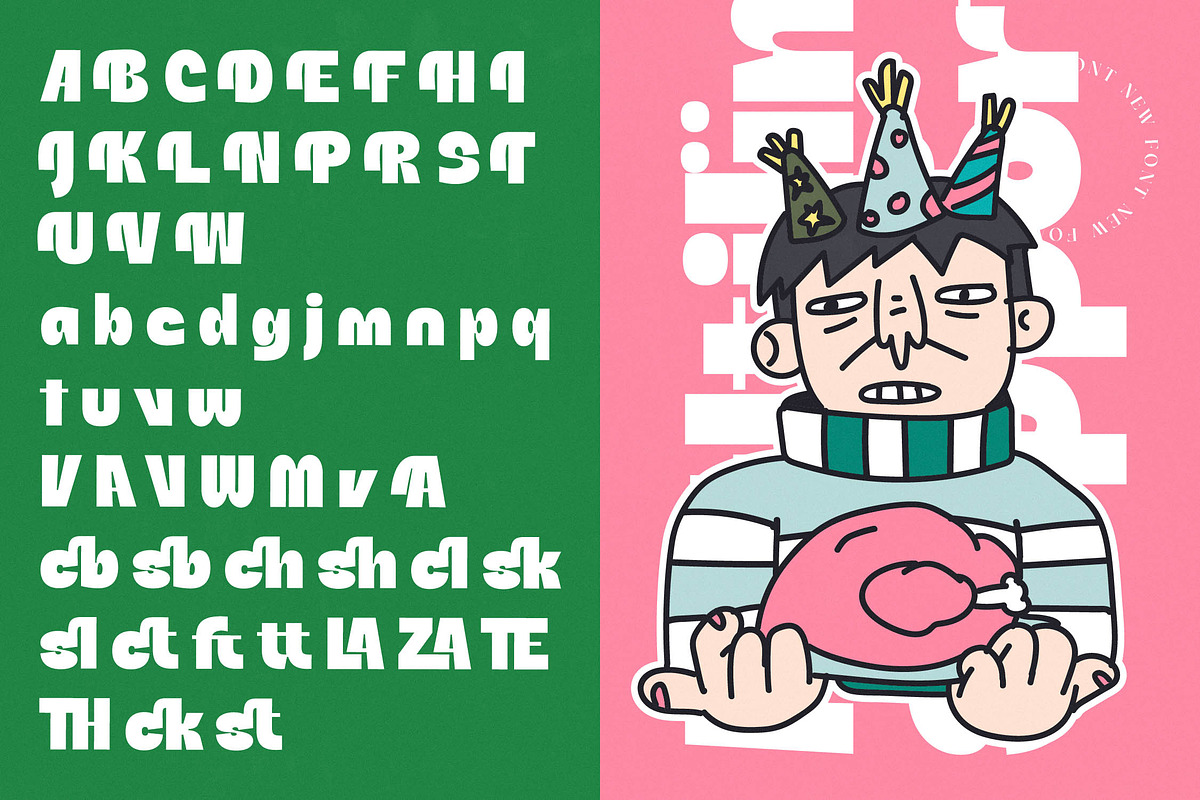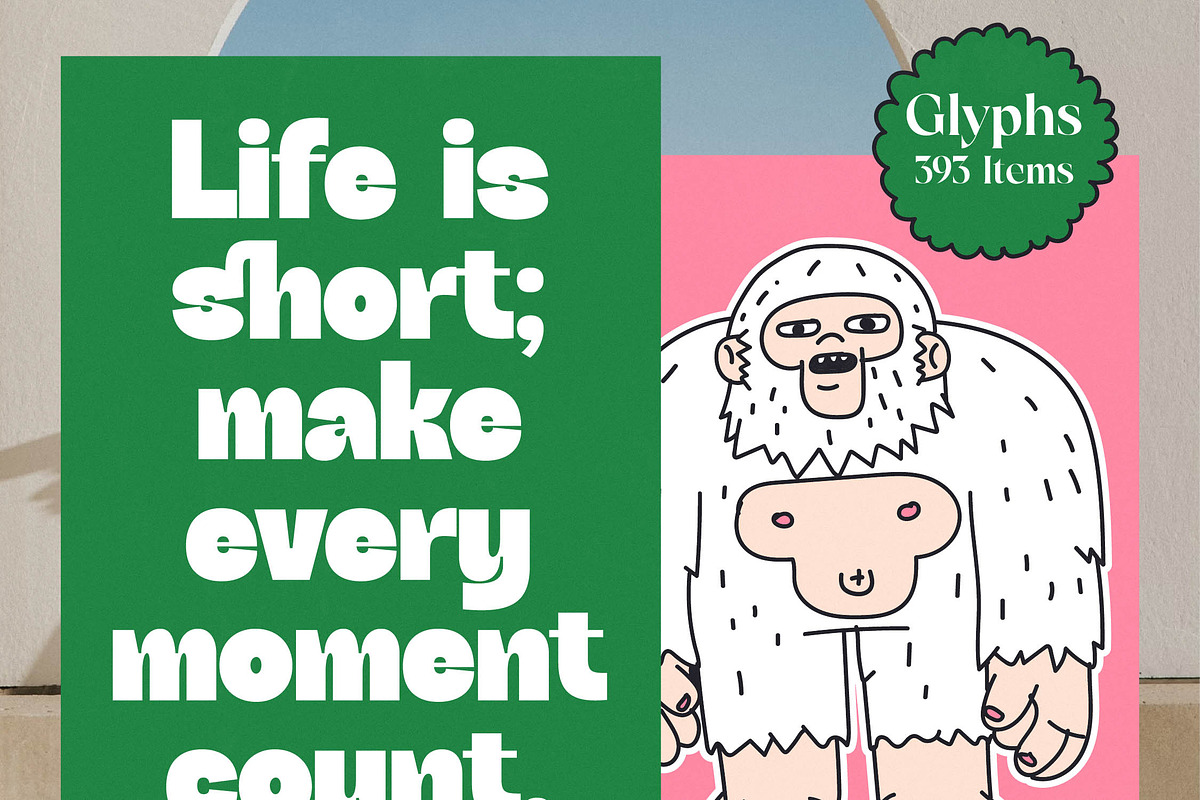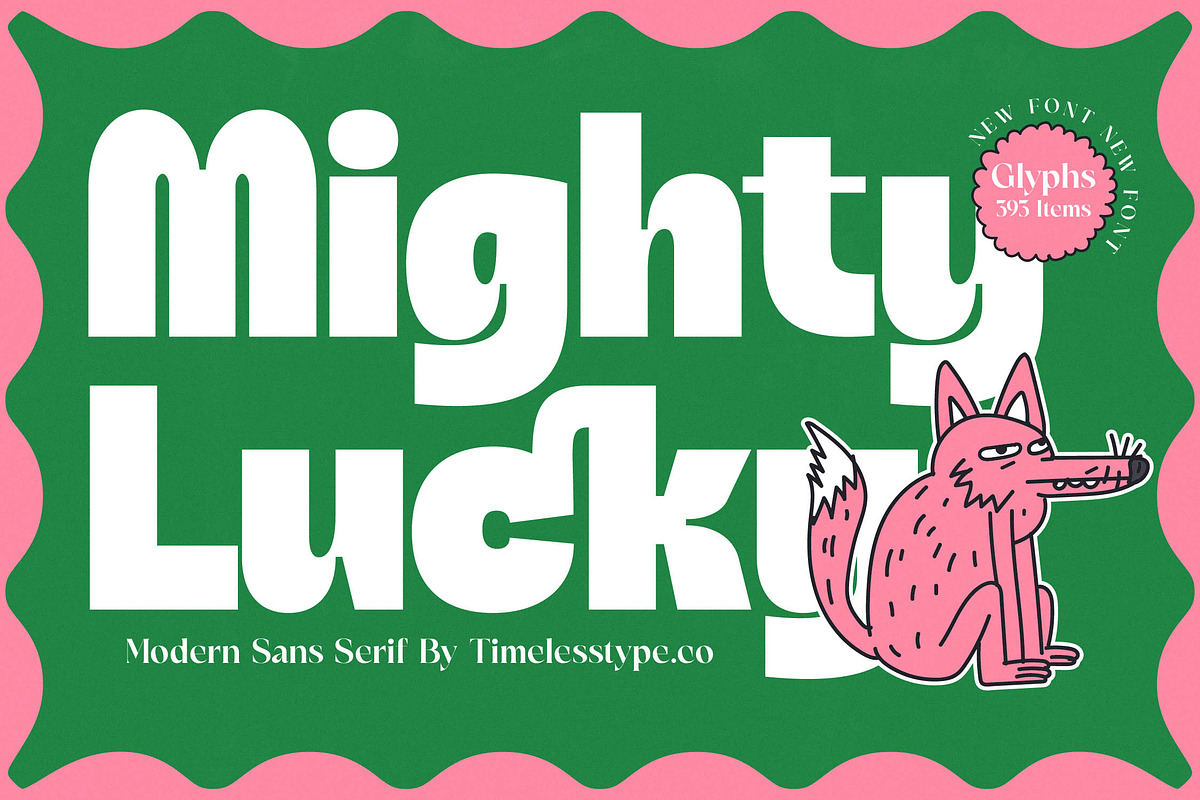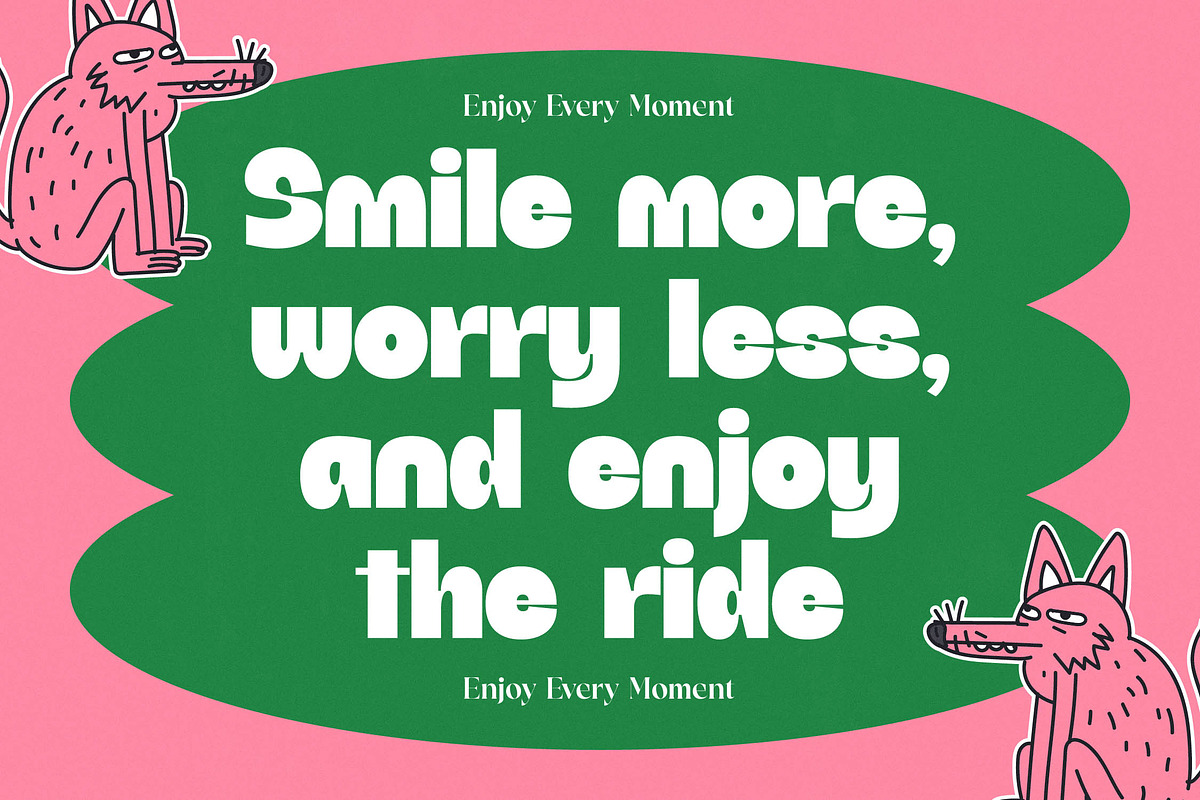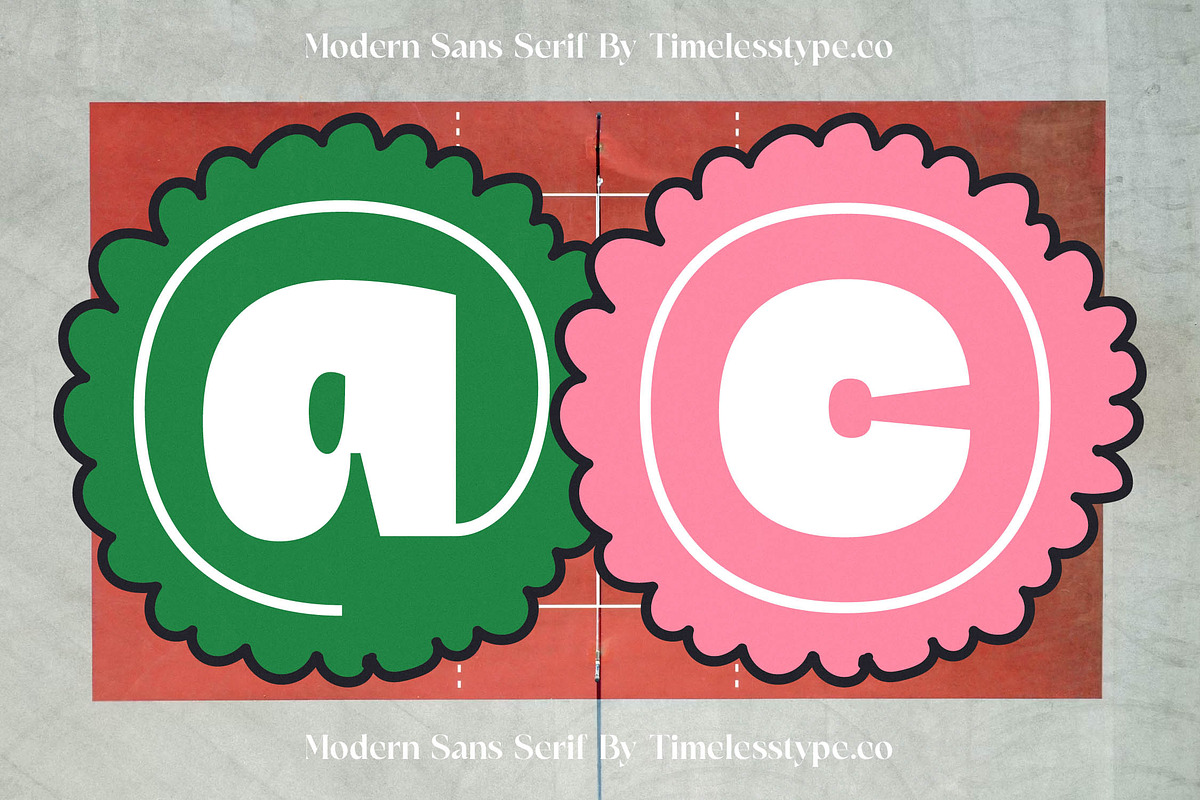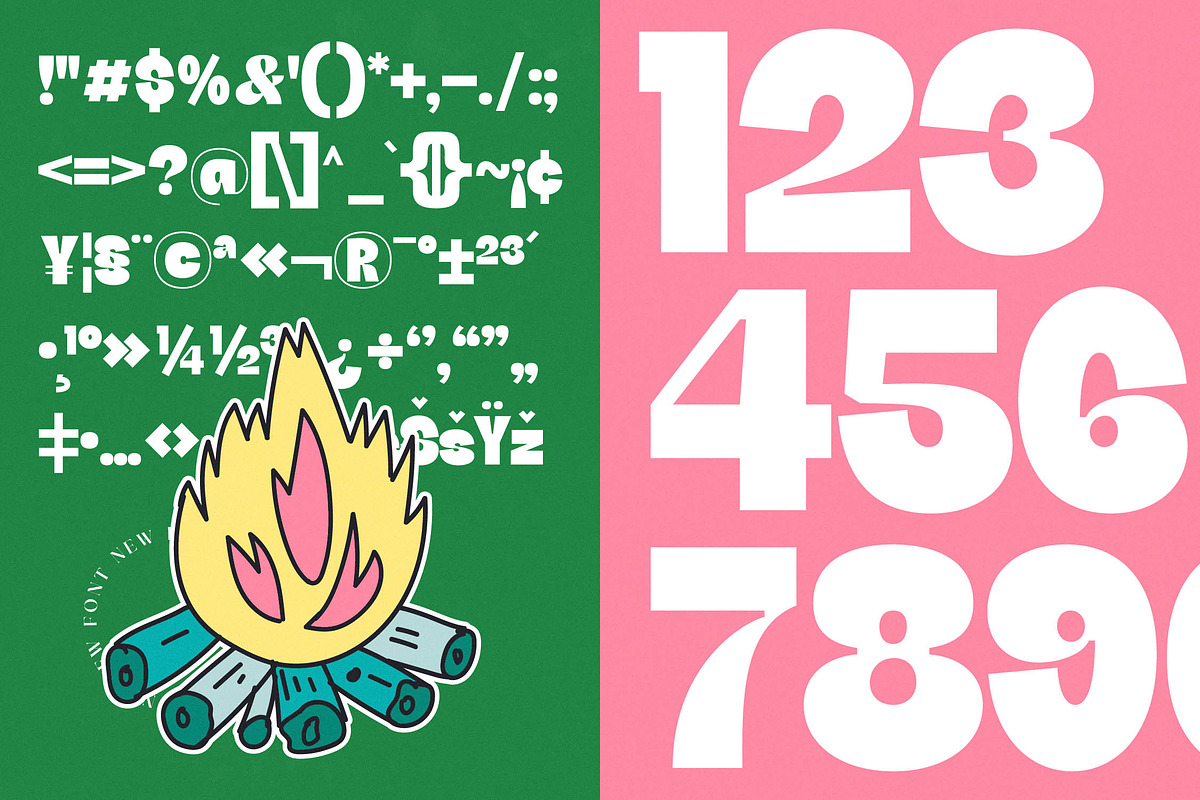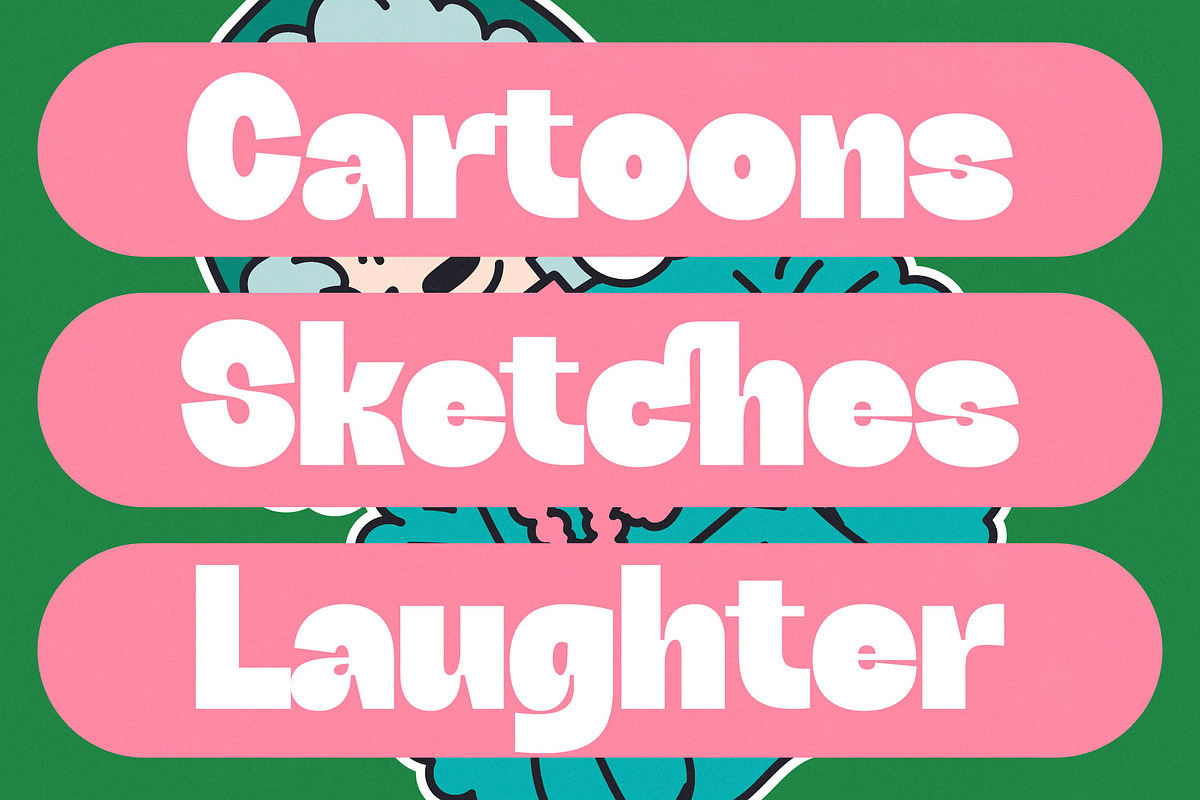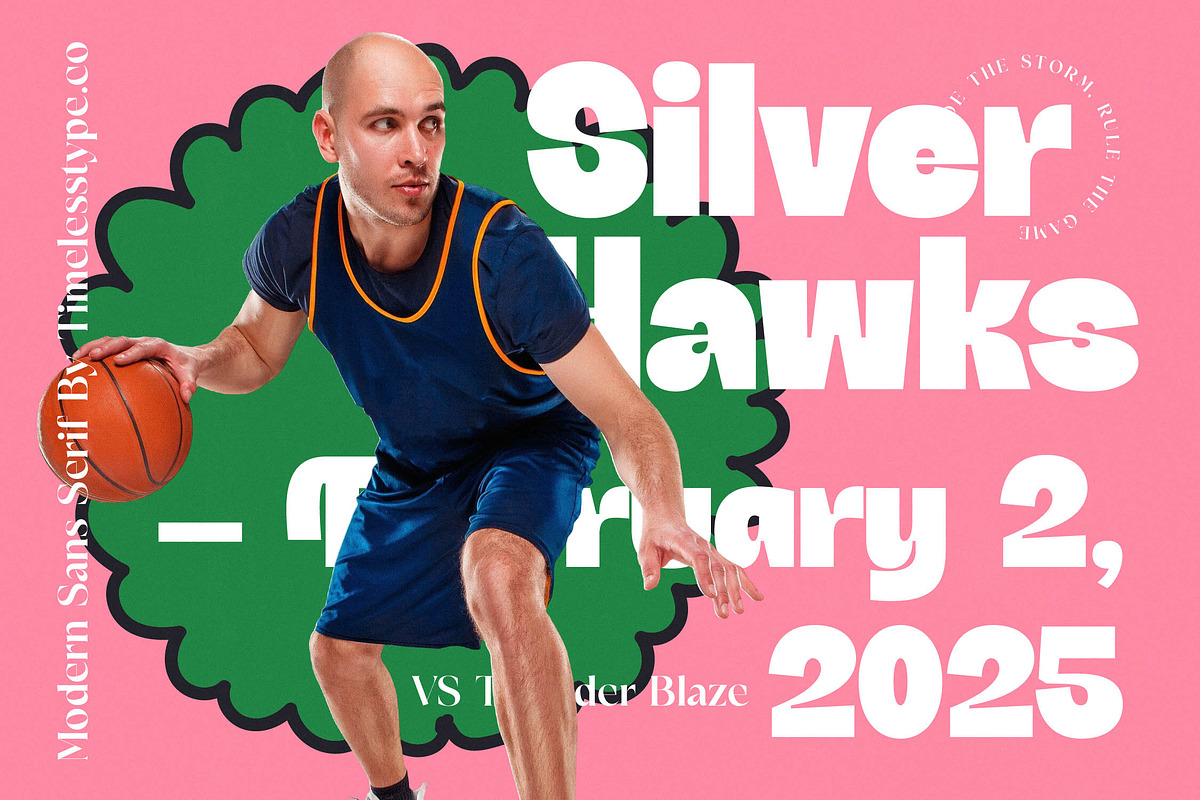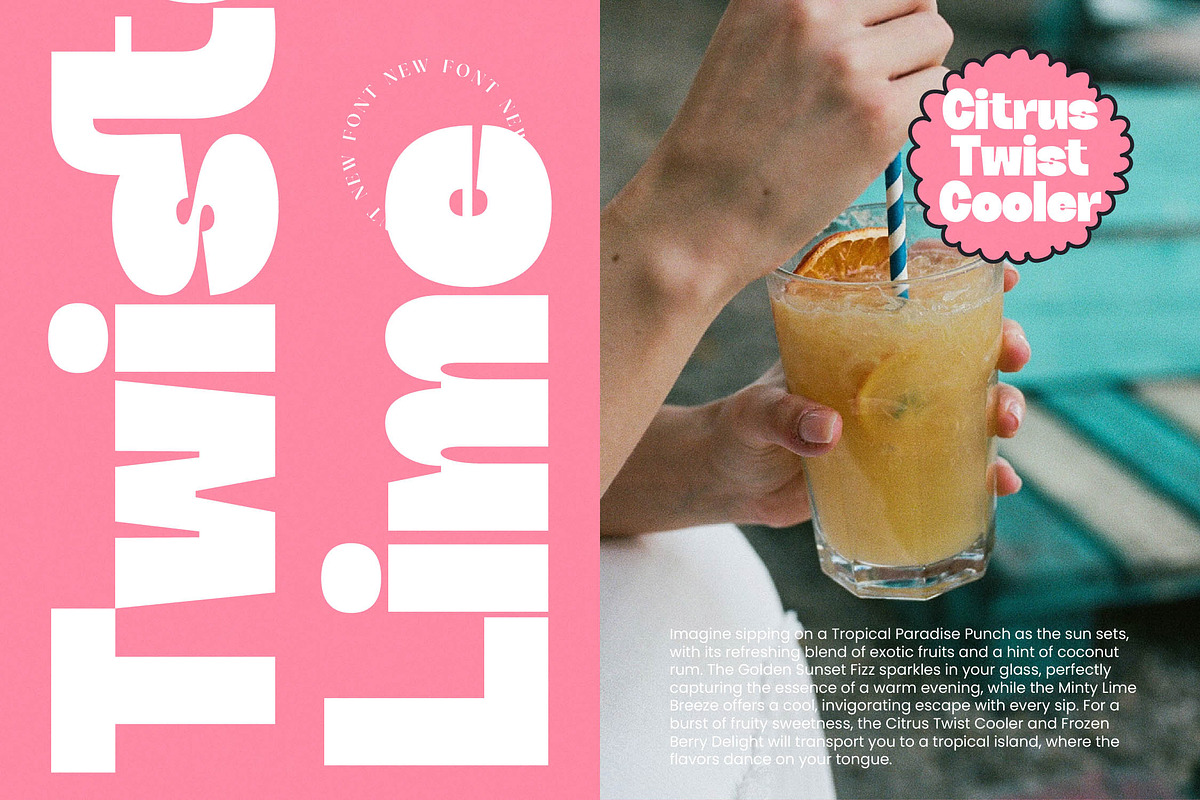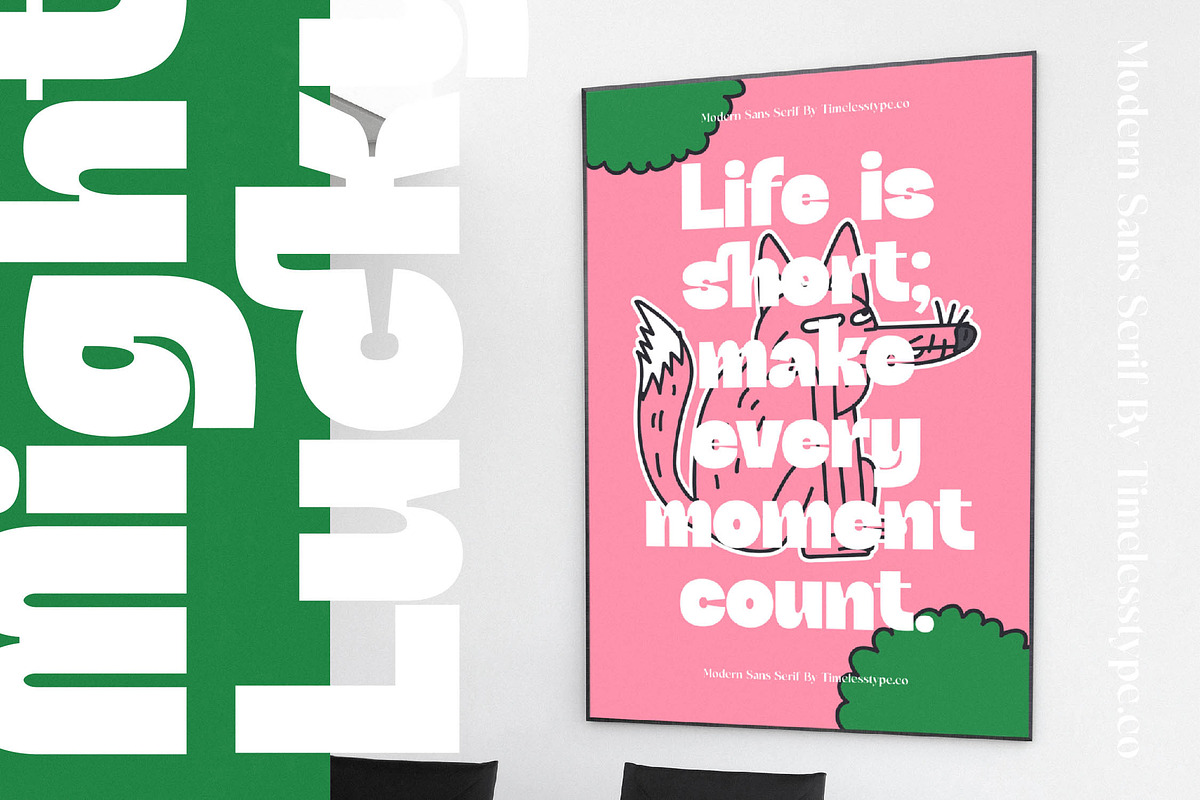
Mighty Lucky Bold Display Font
Inject a dose of unbridled joy and playful energy into your next project with the unmistakable charm of Mighty Lucky. This font isn't just a collection of characters; it’s a bold statement of creativity designed to turn heads and spark smiles instantly.
Drawing inspiration from the whimsical world of mid-century cartoons and the vibrant energy of pop art, this typeface captures a sense of nostalgic wonder. It bridges the gap between classic display aesthetics and contemporary street-style graphics, offering a visual rhythm that is both erratic and perfectly balanced for high-impact visual storytelling.
While it carries the weight of a modern serif display, its soul is pure liquid fun, providing a high-octane branding impact for any creative venture. Despite its chunky nature, it retains the sophistication of an editorial font with enough luxury typography details to elevate it from a simple novelty tool to a professional high-contrast serif powerhouse.
Aligned perfectly with the current modern serif trend, this typeface stands out in a sea of minimalist designs by embracing bold, expressive forms. As designers increasingly seek out editorial display fonts that tell a story, this character-driven typography provides the perfect solution for brands looking to differentiate themselves with a unique visual voice.
This versatile powerhouse is a dream come true for logo design and comprehensive branding systems that need to feel approachable yet trendy. From bold packaging concepts to avant-garde fashion layouts, and even unconventional wedding invitations or editorial spreads, its flexibility knows no bounds across digital and print media.
Boasting an impressive library of over 590 glyphs, the set includes an extensive array of unique ligatures and creative alternates to customize every word perfectly. Full multilingual support and a wide range of international characters ensure your message reaches a global audience, while decorative swashes allow for infinite stylistic variations and customized compositions.
- Ligature 20 Alternate 41